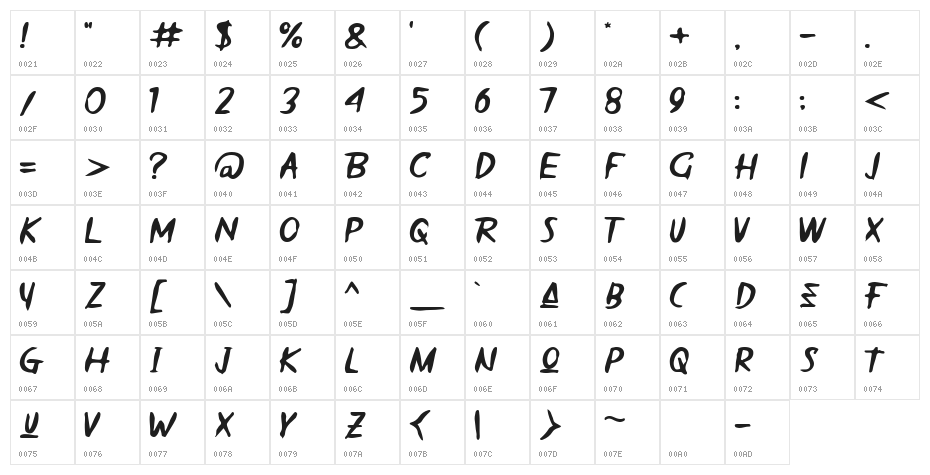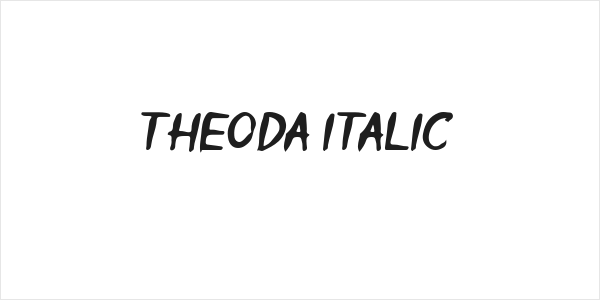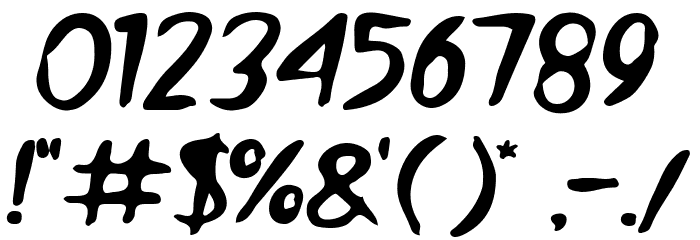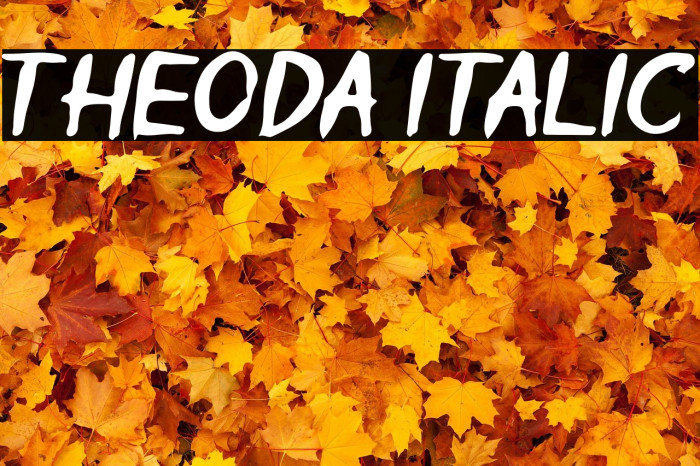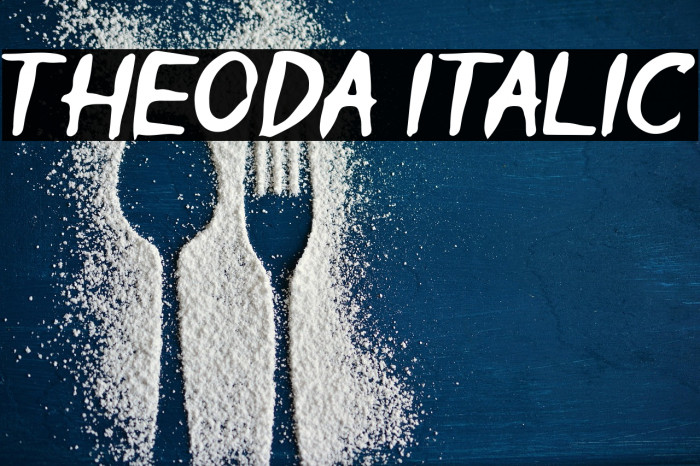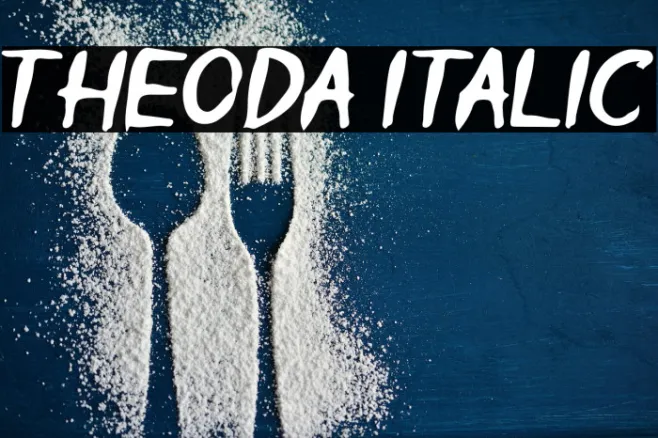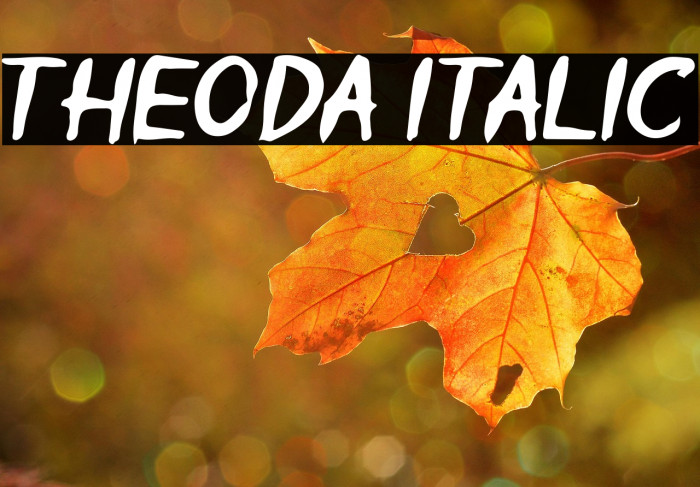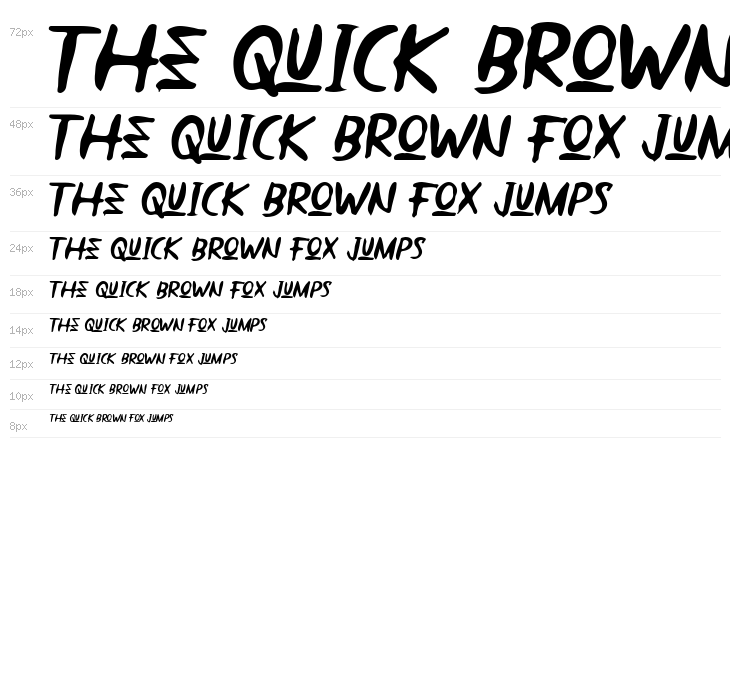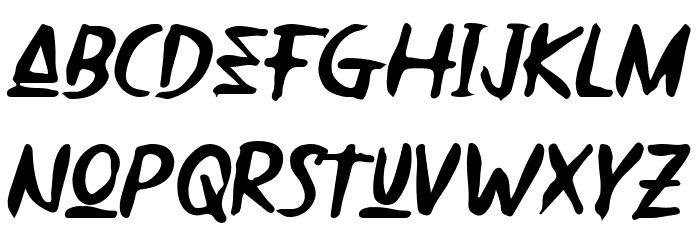
THEODA ITALIC Font
THEODA ITALIC Description
This font exhibits a dynamic and energetic style, characterized by its bold and italicized letterforms. The strokes are thick and fluid, giving it a handwritten appearance with a modern twist. The uppercase and lowercase letters maintain a consistent slant, enhancing the italic effect. The numerals and special characters follow the same stylistic approach, ensuring uniformity across all glyphs. The overall design is playful yet sophisticated, making it suitable for projects that require a touch of personality and flair.